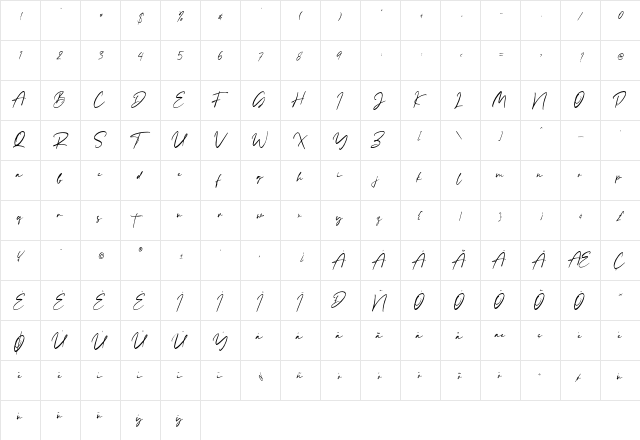
Rachelyne Regular
| Foundry | StringLabs |
| Designer | StringLabs |
Design Context for Rachelyne Typeface
Rachelyne is a composed and adaptable typeface that performs quietly and consistently across a wide range of design contexts.